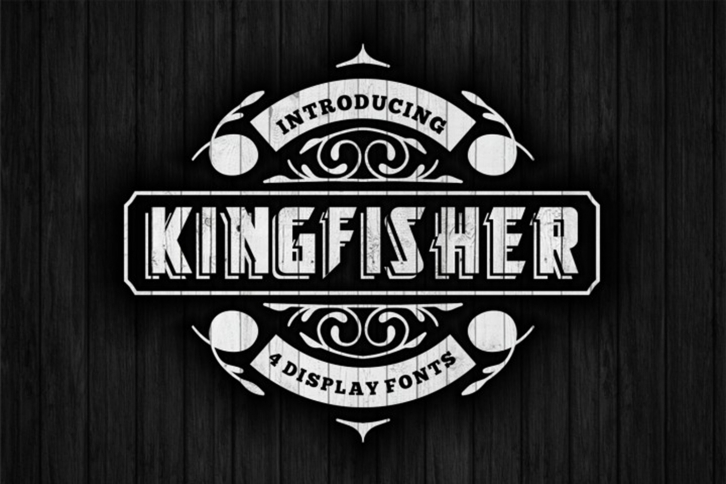
KingFisher
KingFisher is a designer font with features of fully incorporated into a many variation of use. Strong and sharp corners compared with additional shadow this font attracts and eye catchable. Created by our professional team of designers this font is applicable in any occasions of your digital art work or text. The font is available in bold and italic variations.
Number of possible uses for inspiration
Book covers or inside chapters section heading
Posters or postcards design
Party decorations and congratulation cards
Invitation letters and business envelopes
Text headings and graphic themes designs